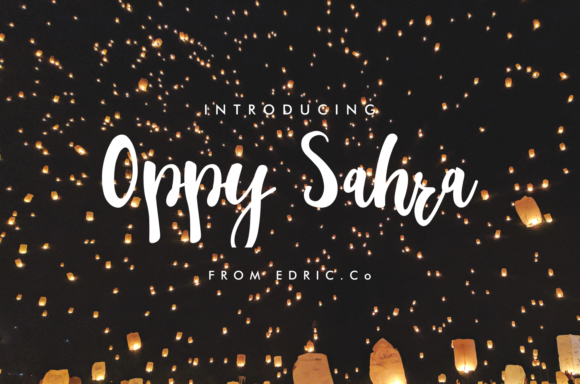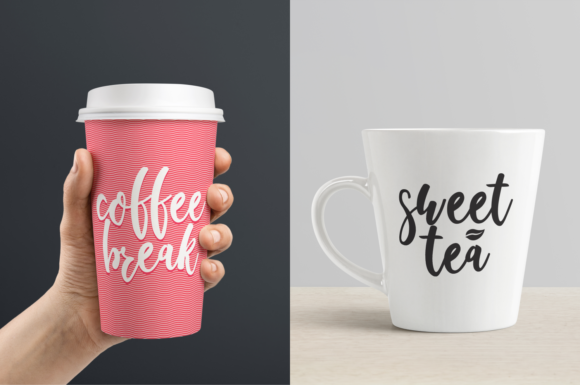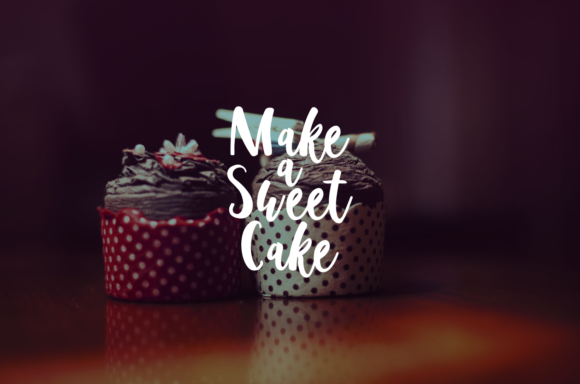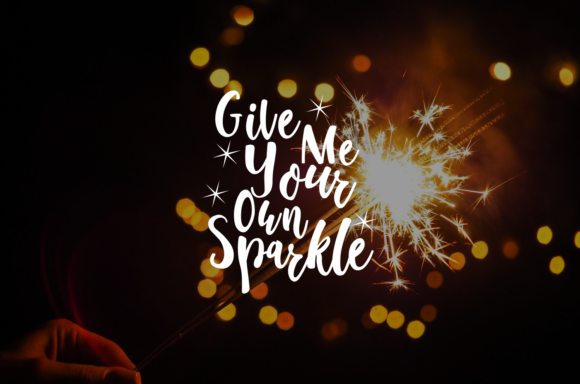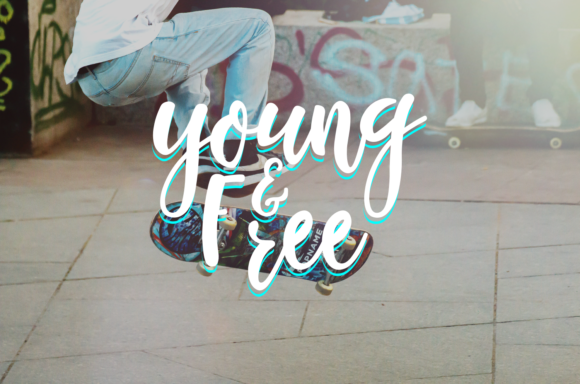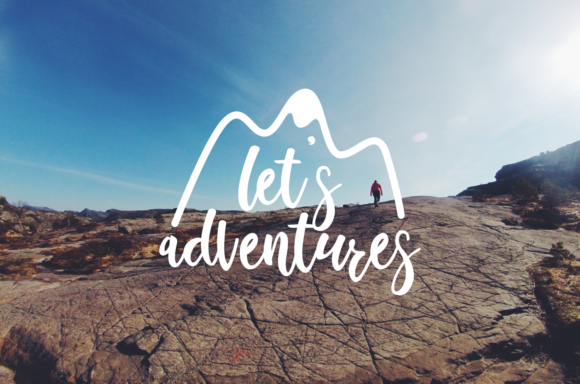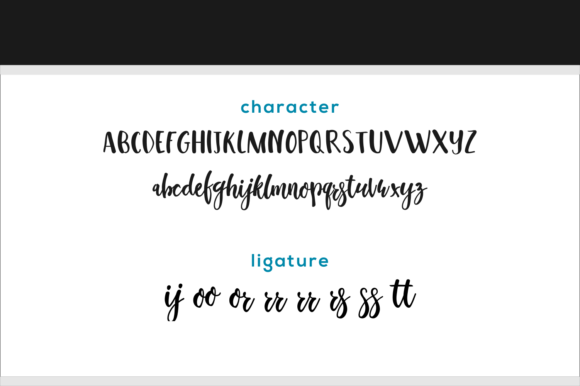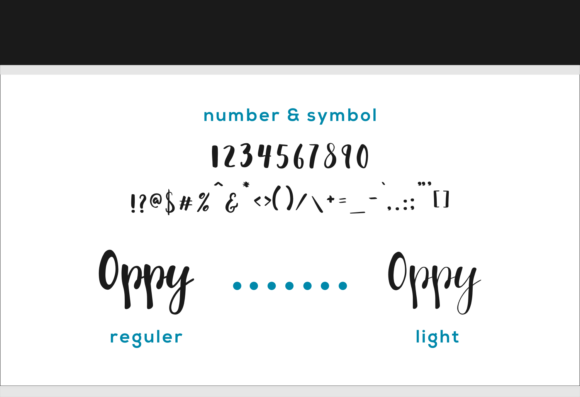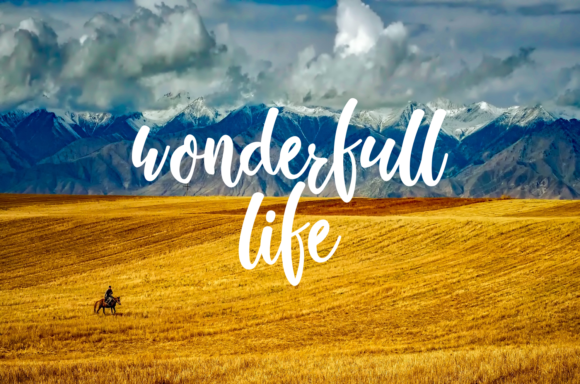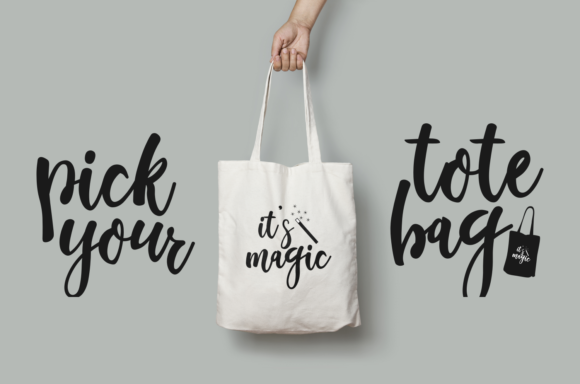
Oppy Sahra Font
About Oppy Sahra Font
The Oppy Sarah is a beautiful handwritten font. It includes multiple styles which can be combined perfectly.
It’s great for adding a natural, elegant feel to your designs.